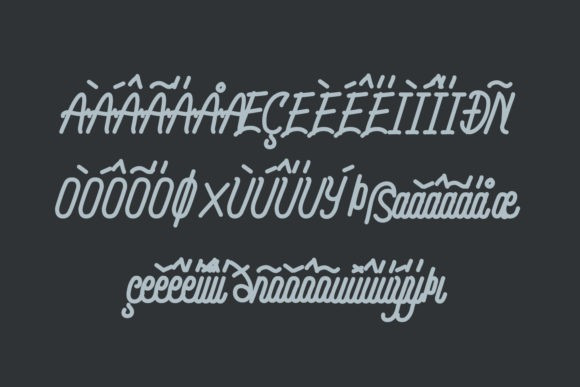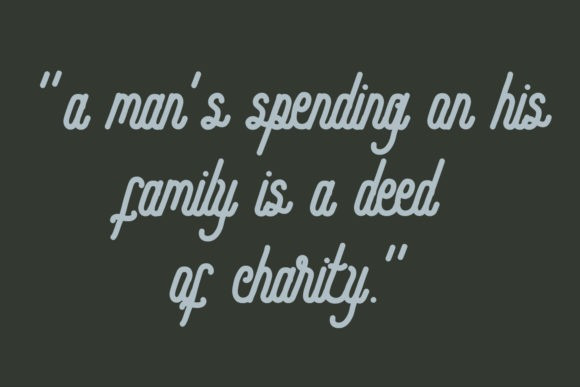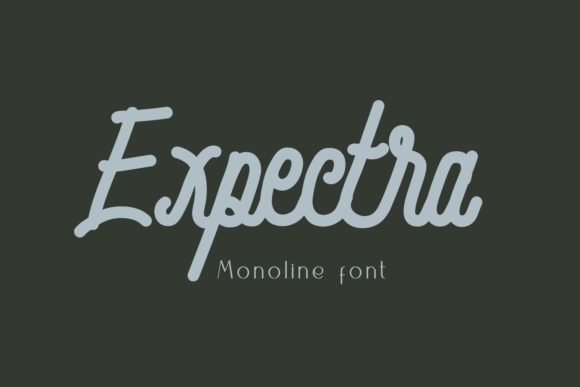
Expectra Font
Expectra Font is a beautiful, well balanced and vintage styled handwritten font. This font was particularly crafted for those who need a beautiful and refreshing look to their designs.